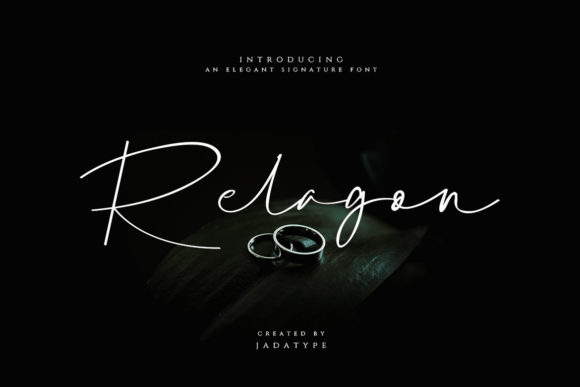
Relagon Font
Immerse yourself in the world of Relagon Font, a meticulously crafted handwritten font that exudes elegance and charm. Its light and airy strokes dance across the page, evoking a sense of romance and playfulness. Relagon's captivating style adds a touch of sophistication to any design, making it the perfect choice for wedding menus, invitations, and heartfelt notes.
Unleash your creativity and let Relagon's enchanting curves guide you as you design stunning works of art. From delicate wedding stationery to whimsical posters, Relagon's versatility knows no bounds. Its PUA encoding ensures effortless access to a treasure trove of glyphs and swashes, empowering you to add intricate details and flourishes to your creations.
Imagine the awe and admiration as your wedding guests receive their menus, adorned with Relagon's graceful script. Its elegant strokes will set the tone for an unforgettable celebration, leaving a lasting impression in the hearts of your loved ones. Relagon's romantic allure is not limited to wedding menus; it seamlessly enhances invitations, save-the-dates, and any other printed materials that seek to capture the essence of love and commitment.
Beyond the realm of weddings, Relagon shines as a radiant companion for heartfelt letters, greeting cards, and personal notes. Its flowing lines add a touch of warmth and sincerity to your words, conveying emotions with grace and eloquence. Picture the joy on your recipient's face as they unfold a letter written in Relagon's enchanting script, feeling the love and care poured into each word.
With Relagon by your side, you hold the key to unlocking a world of creative possibilities. Its versatility extends to posters, flyers, and branding materials, adding a touch of sophistication and charm to your marketing efforts. Relagon's ability to elevate ordinary designs into captivating works of art makes it an invaluable asset for businesses seeking to leave a lasting impression on their customers.